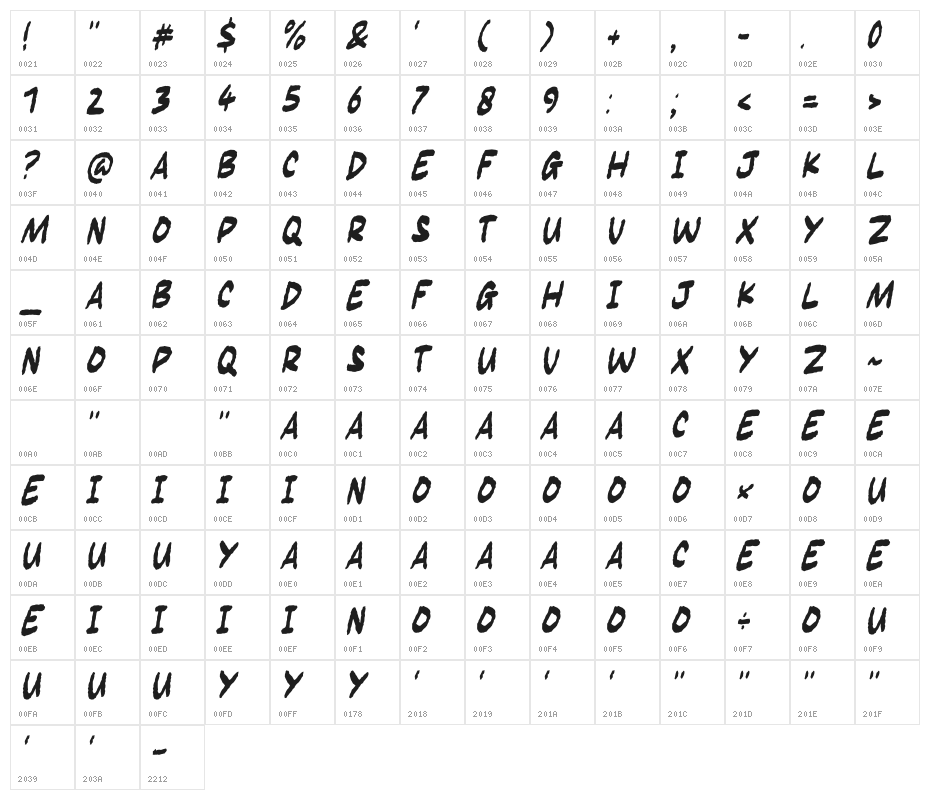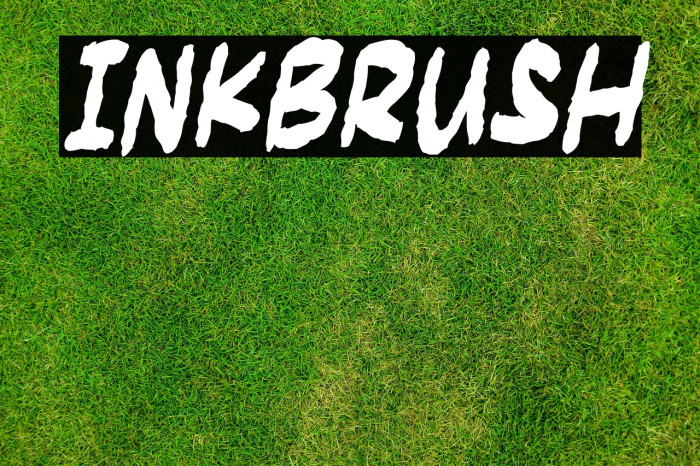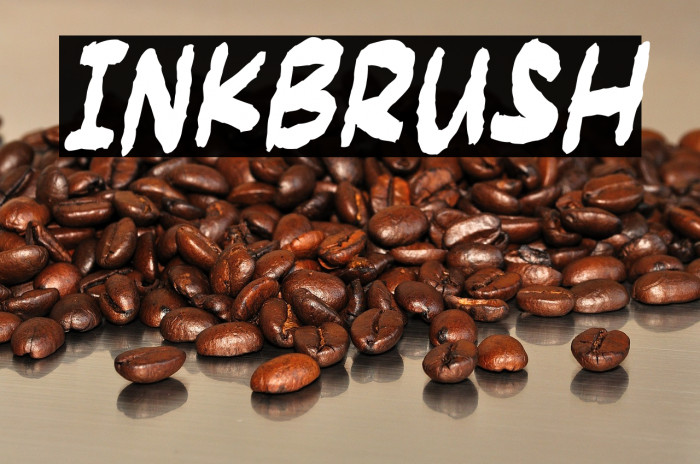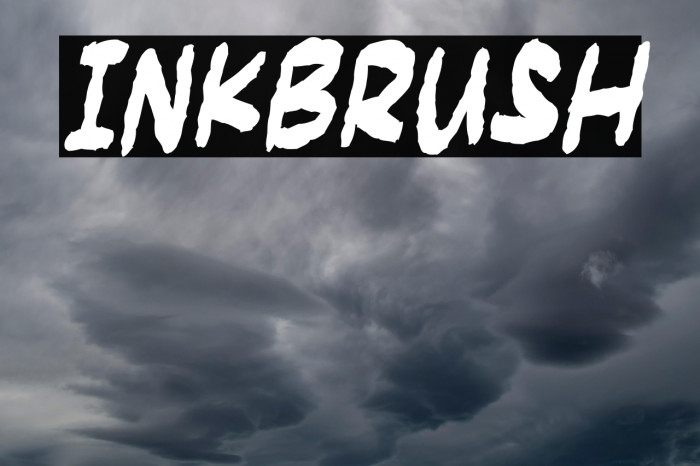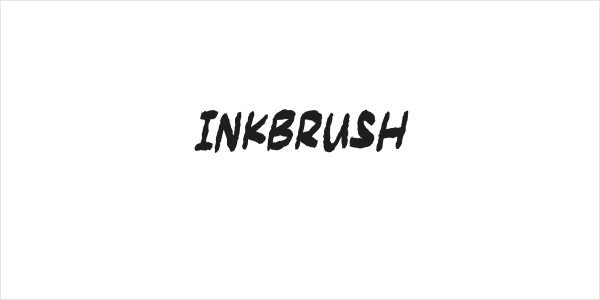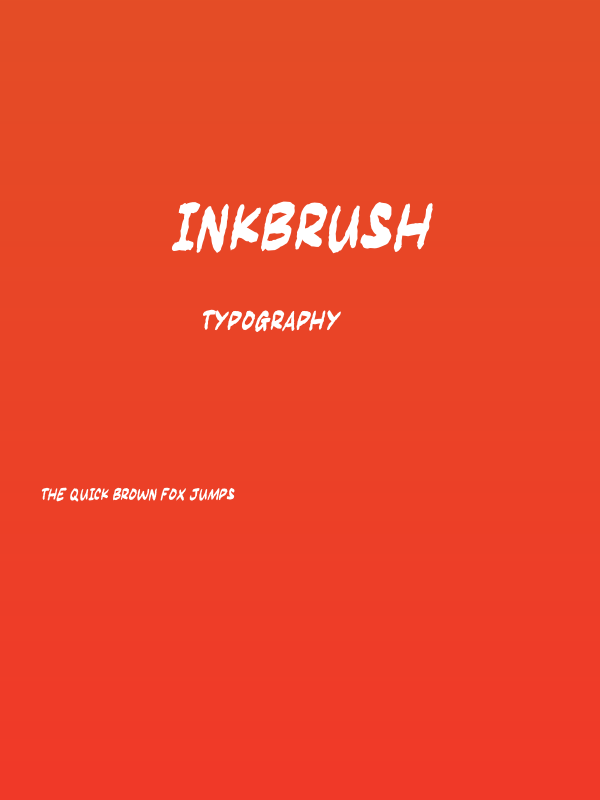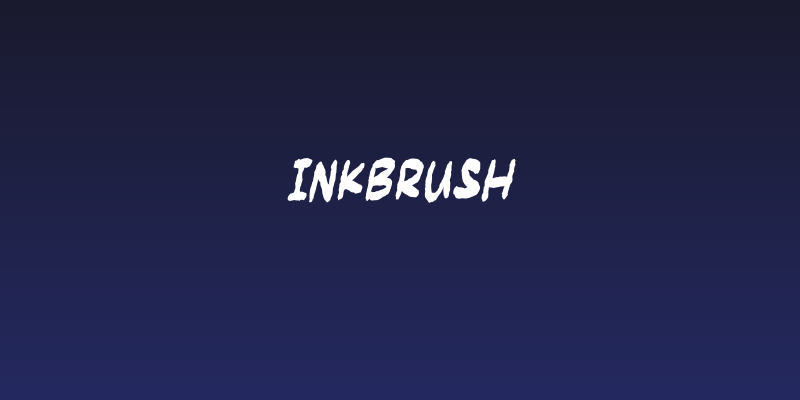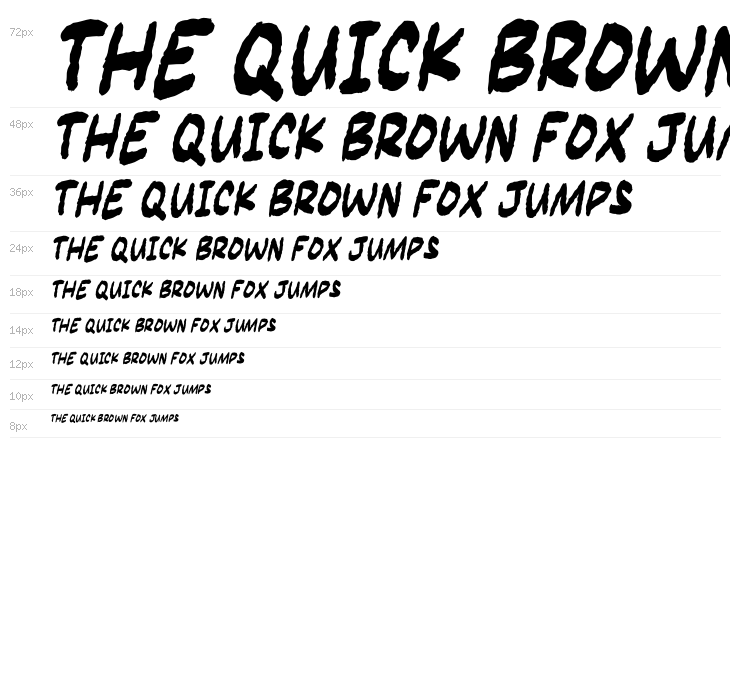
Inkbrush Font
Inkbrush Description
This font exudes a bold and expressive style, reminiscent of brush strokes with a hand-painted feel. The characters are dynamic and slightly irregular, giving them a lively and artistic appearance. The uppercase and lowercase letters maintain a consistent flow, with varying thickness that adds to the visual interest. The numerals and special characters follow the same energetic style, making the font suitable for creative and eye-catching designs. Its unique texture and bold presence make it ideal for projects that require a strong visual impact.
| Overall Style | Artistic, Expressive |
| Proposed Projects | Ideal for posters, branding, packaging, and artistic projects that require a bold and expressive touch. |